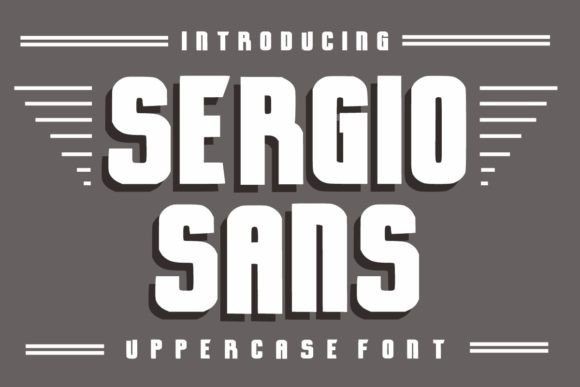
Introducing SERGIO SANS, the ultimate font for those seeking sophistication and impact in their designs. This all-caps display font radiates confidence and authority, leaving a lasting impression on your audience. Designed by Infinity Art Studio, SERGIO SANS is a masterful creation that ensures your message stands out.
Dive into the world of digital design, presentations, greeting cards, and branding, all while wielding the power of SERGIO SANS. Its bold and captivating presence commands attention in any project. Let SERGIO SANS elevate your designs with an air of elegance and professionalism.
SERGIO SANS is a visual game-changer, transforming ordinary text into captivating statements. Whether you're a seasoned designer or just starting, this font is your secret weapon to create stunning visuals. It's the perfect choice for those who dare to be different and want their designs to leave an unforgettable mark.
With SERGIO SANS as your design partner, you'll captivate your audience and convey your message with power and clarity. This font is not just a tool; it's an expression of your unique style and an extension of your creative vision.
Don't settle for ordinary fonts. Choose SERGIO SANS today and embark on a design journey that will leave your audience in awe. Transform your creative ideas into stunning realities with this unparalleled font that exudes confidence, authority, and sophistication.